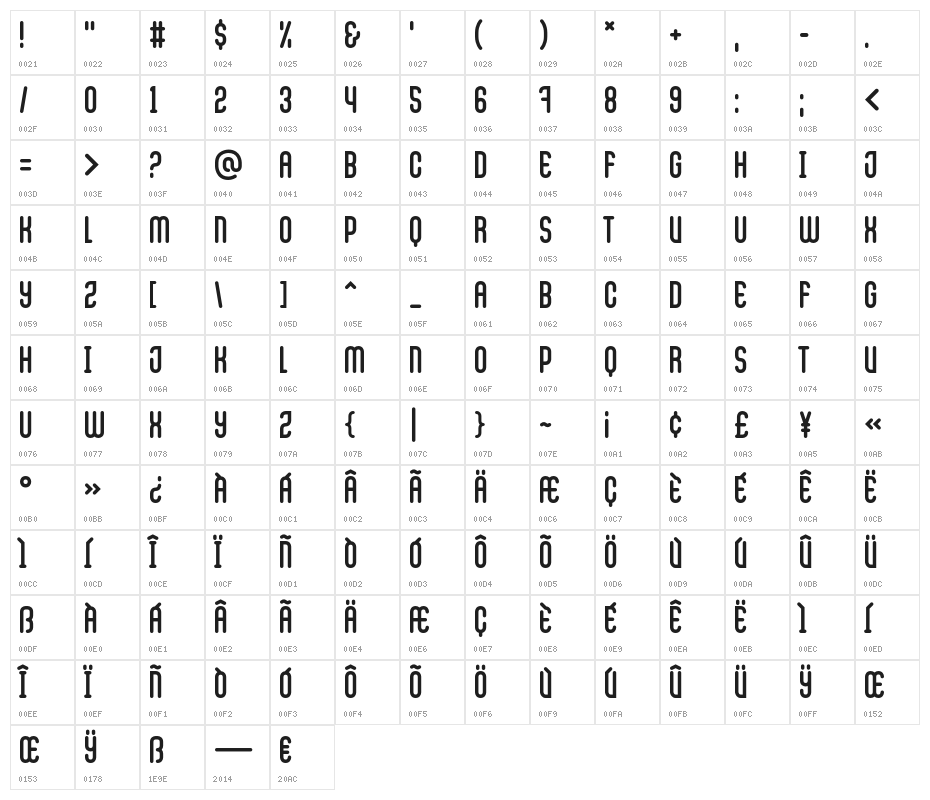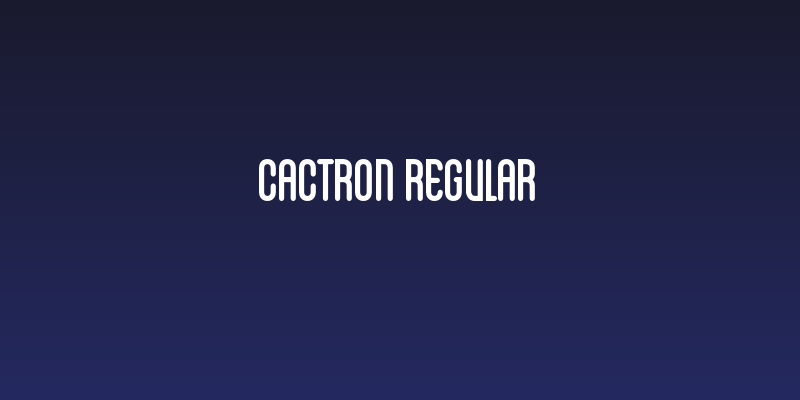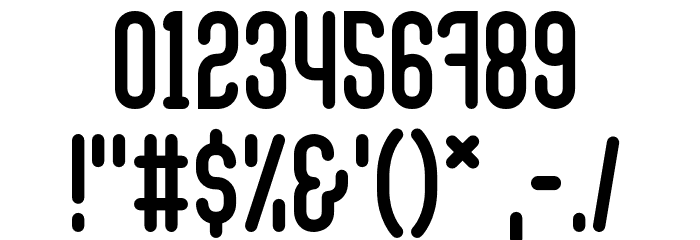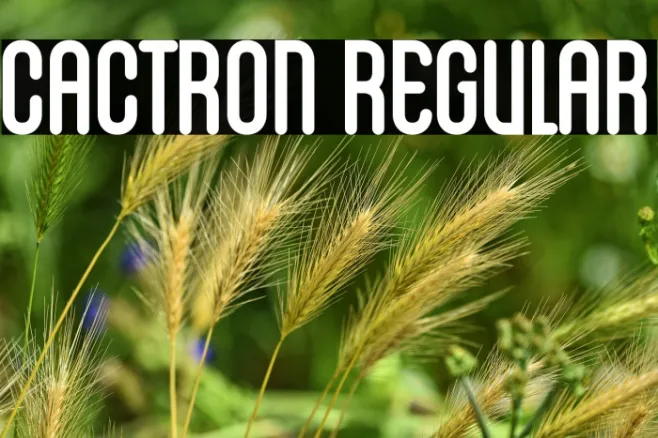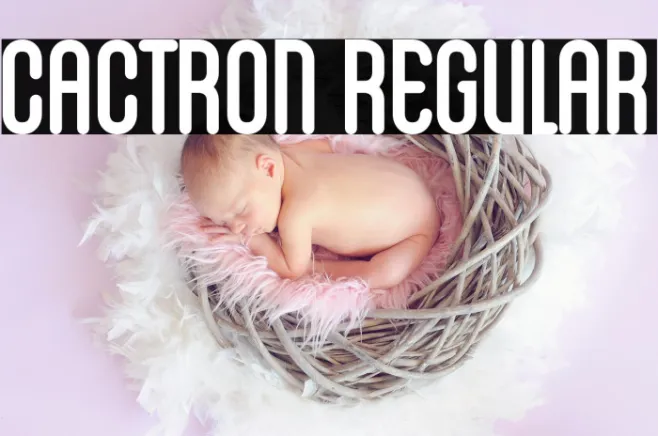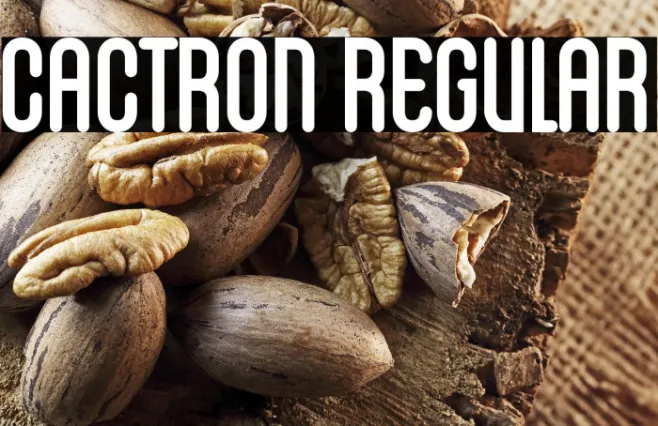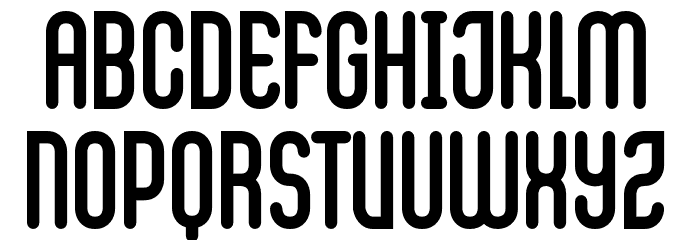
Cactron Regular Font
Cactron Regular Description
This font features a bold and rounded design, characterized by its thick strokes and smooth curves. The letters are uniformly structured with a consistent width, giving it a cohesive and modern appearance. The rounded terminals add a friendly and approachable feel, while the uniformity in stroke width provides a clean and polished look. This font is highly legible, making it suitable for various design applications. The numerals and special characters maintain the same rounded style, ensuring consistency across all glyphs. Its boldness and distinct style make it stand out, yet it remains versatile enough for both digital and print media.